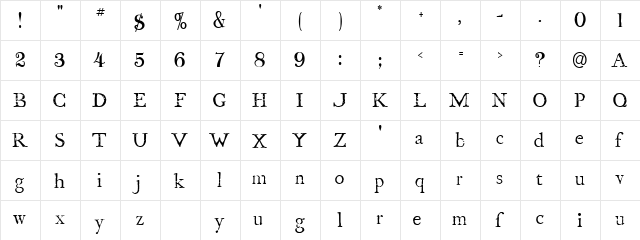
Boswell Regular
Design Context for Boswell Typeface
Boswell takes a measured approach to typography — its balanced proportions and neutral character make it a reliable workhorse for both digital and print work.